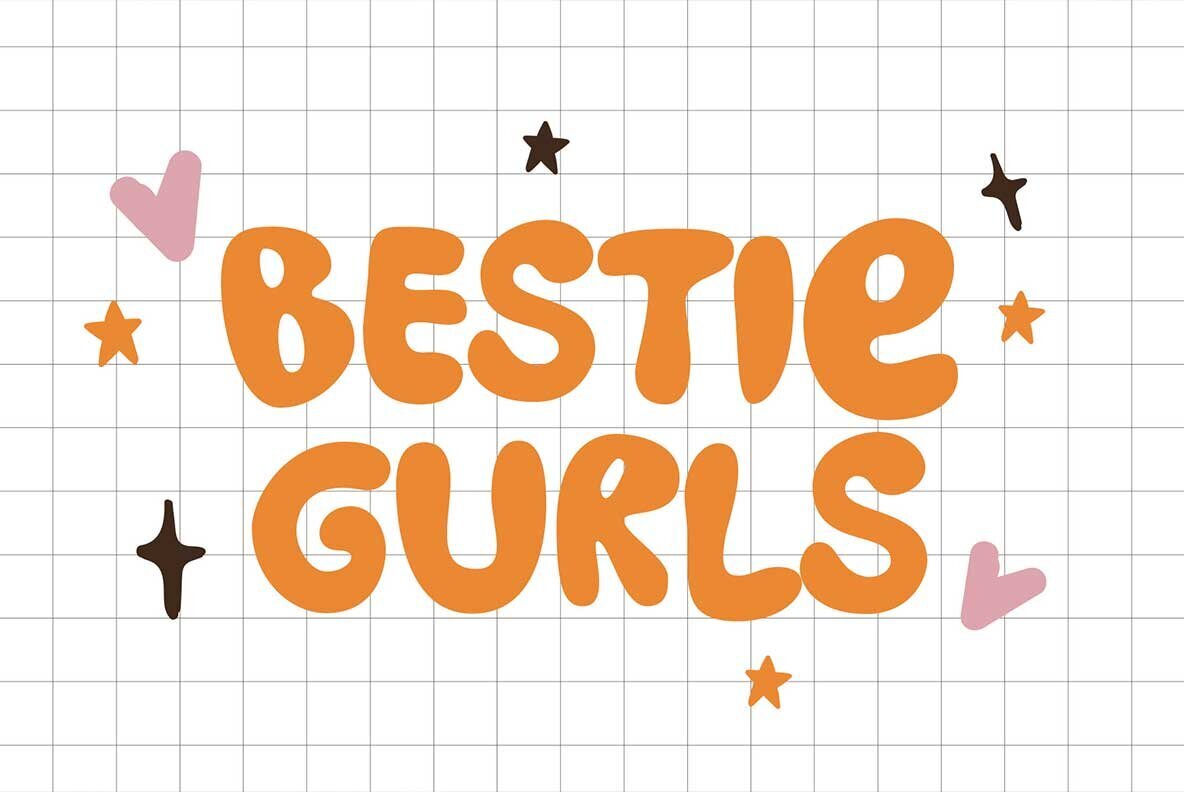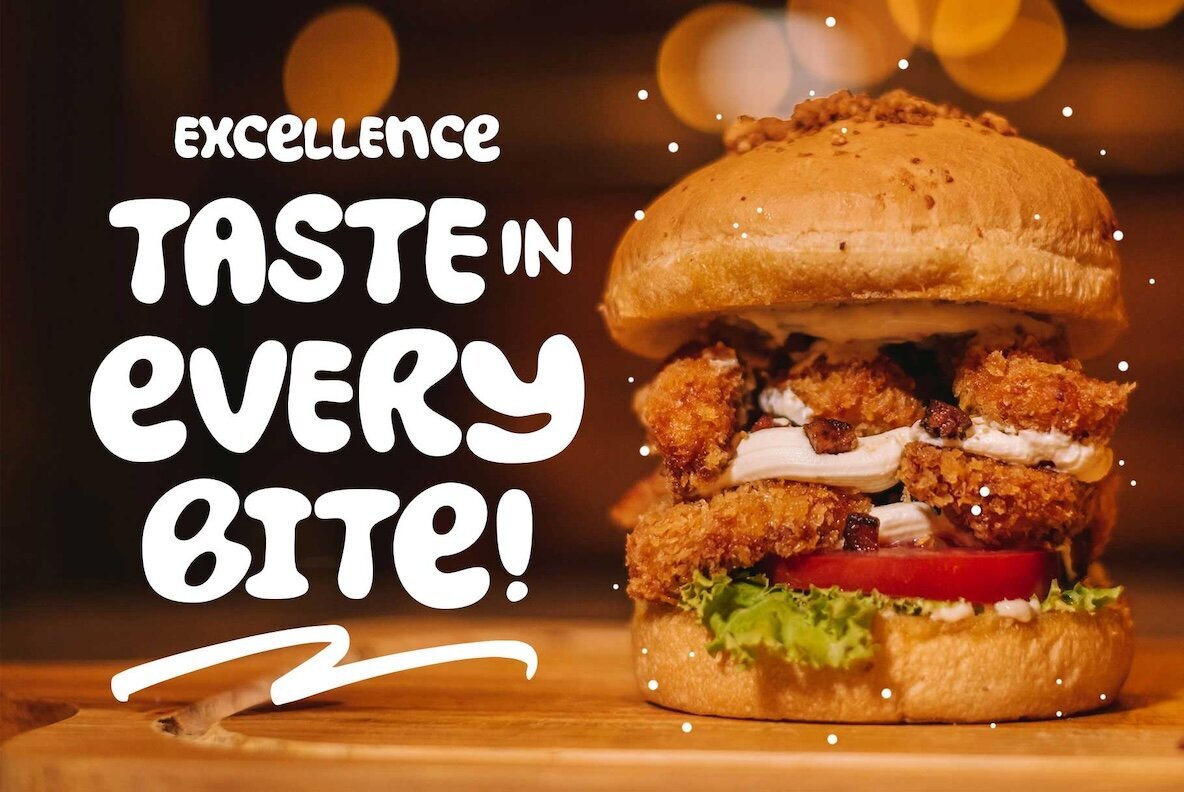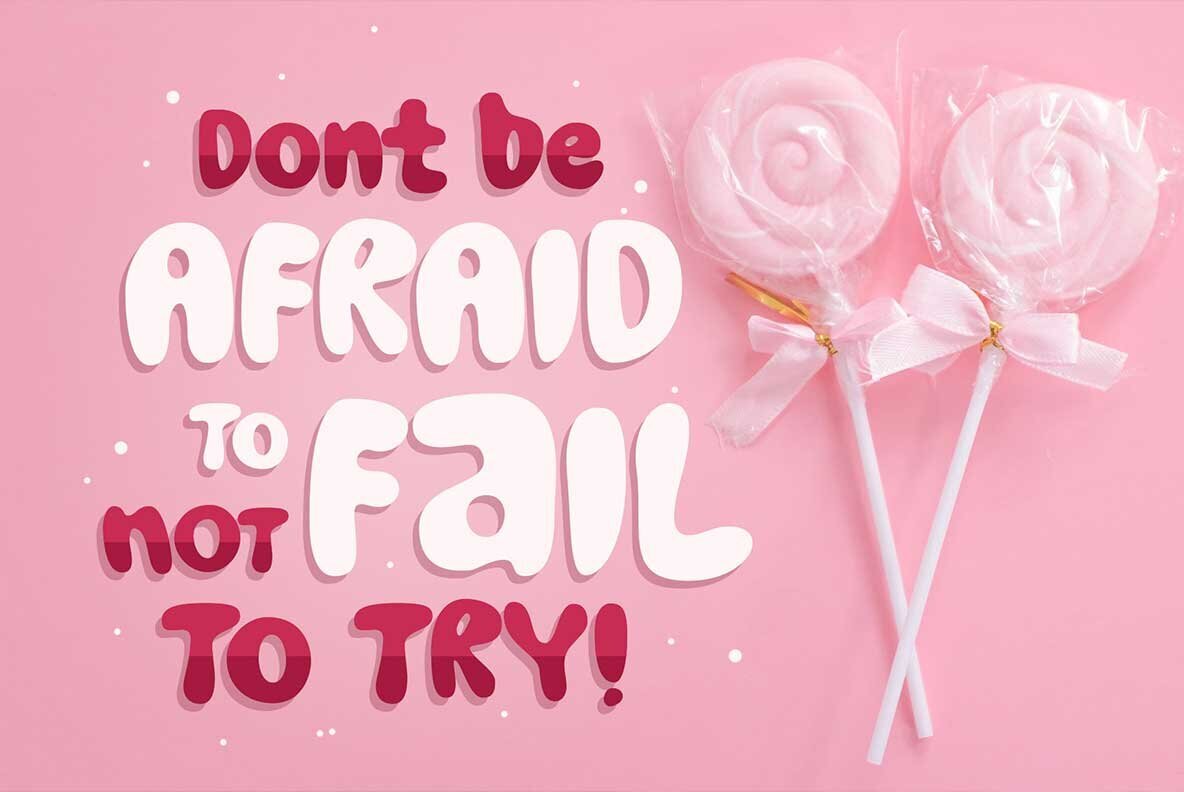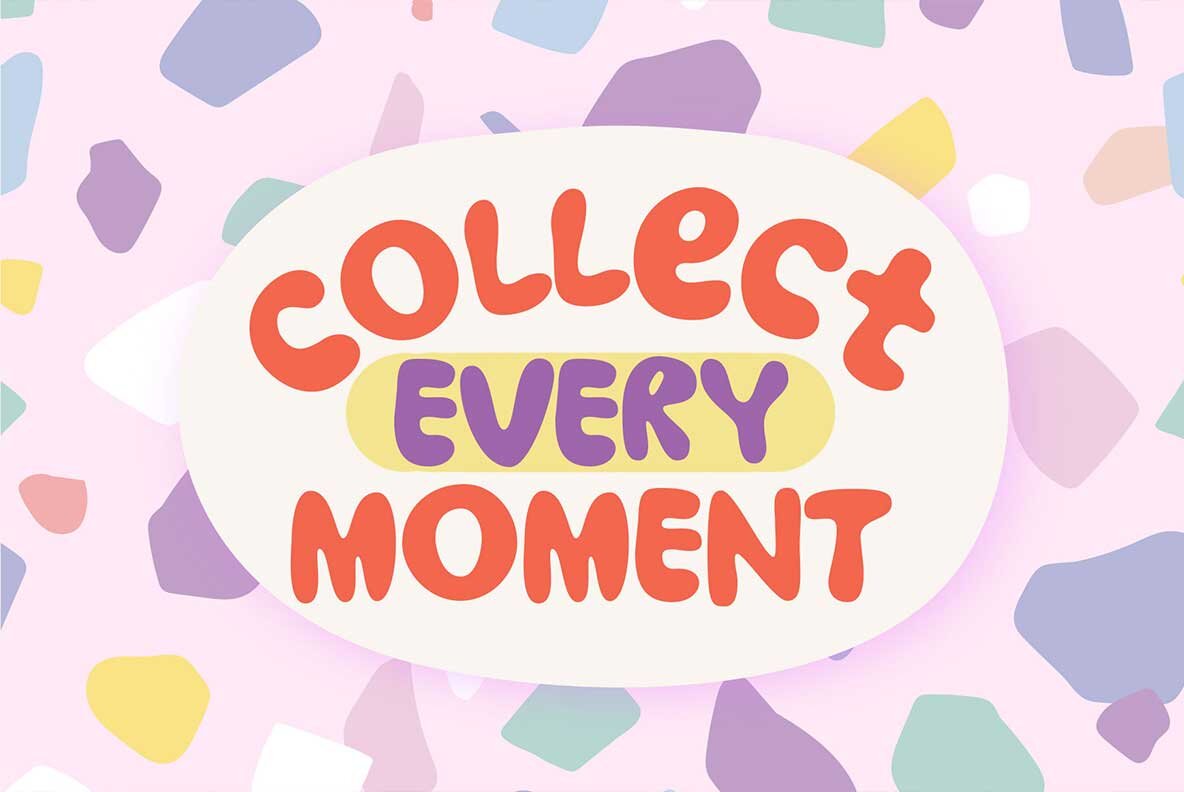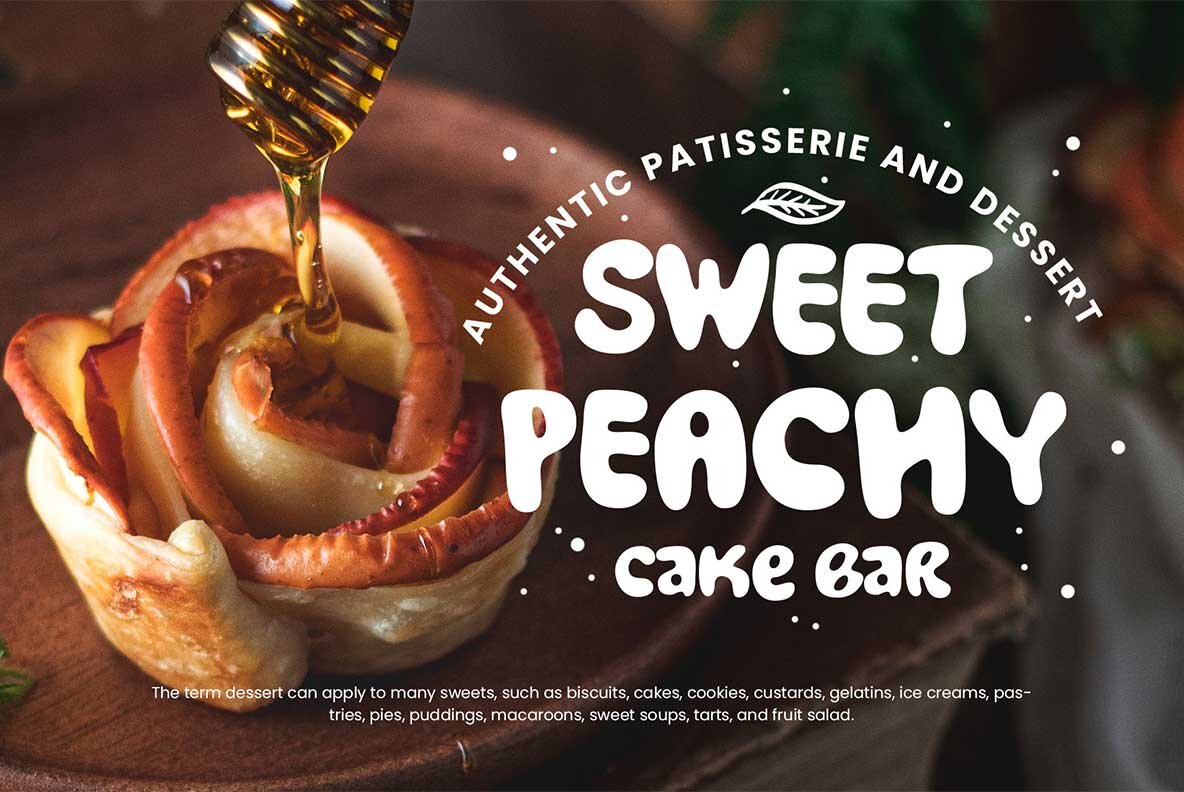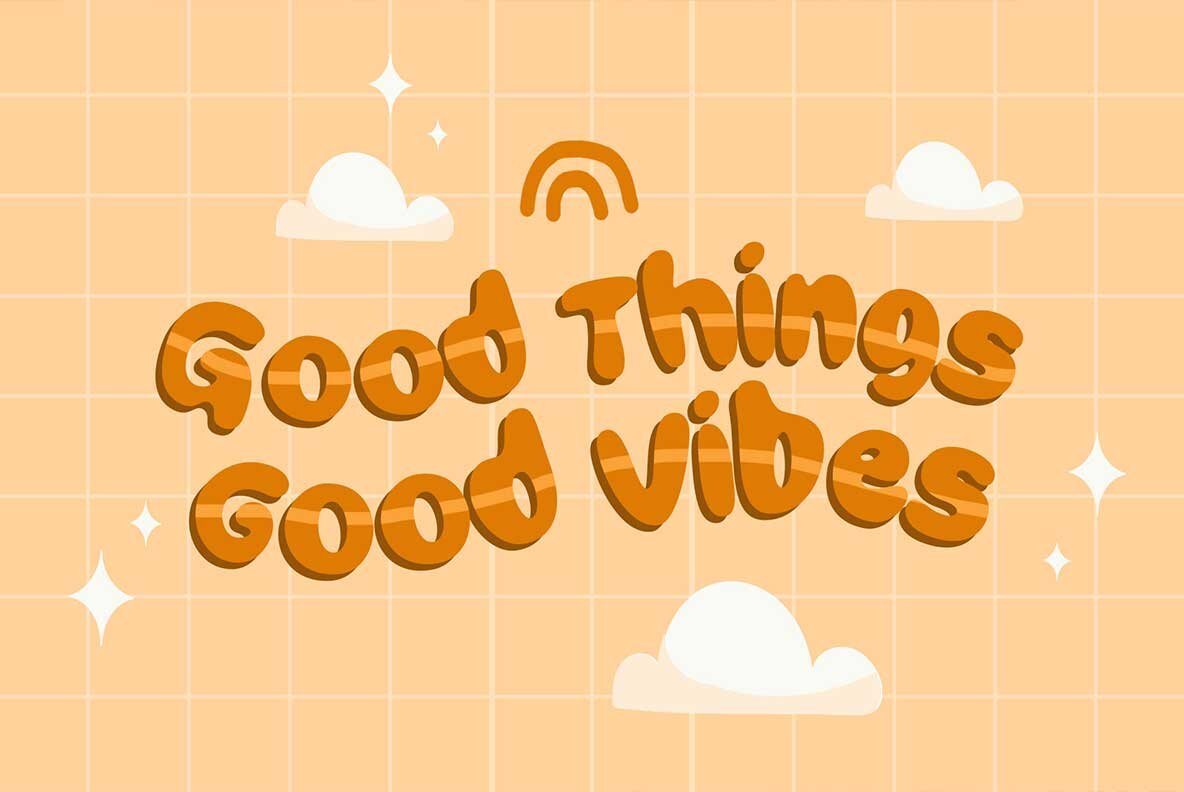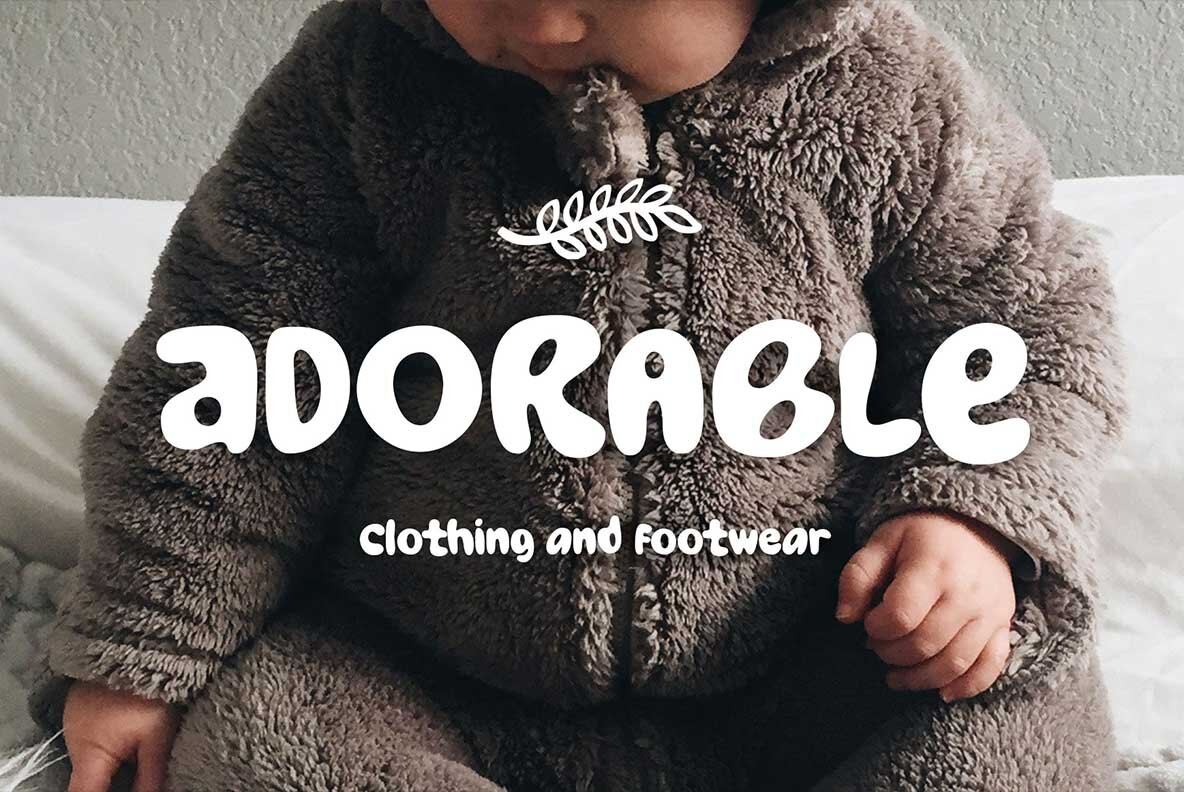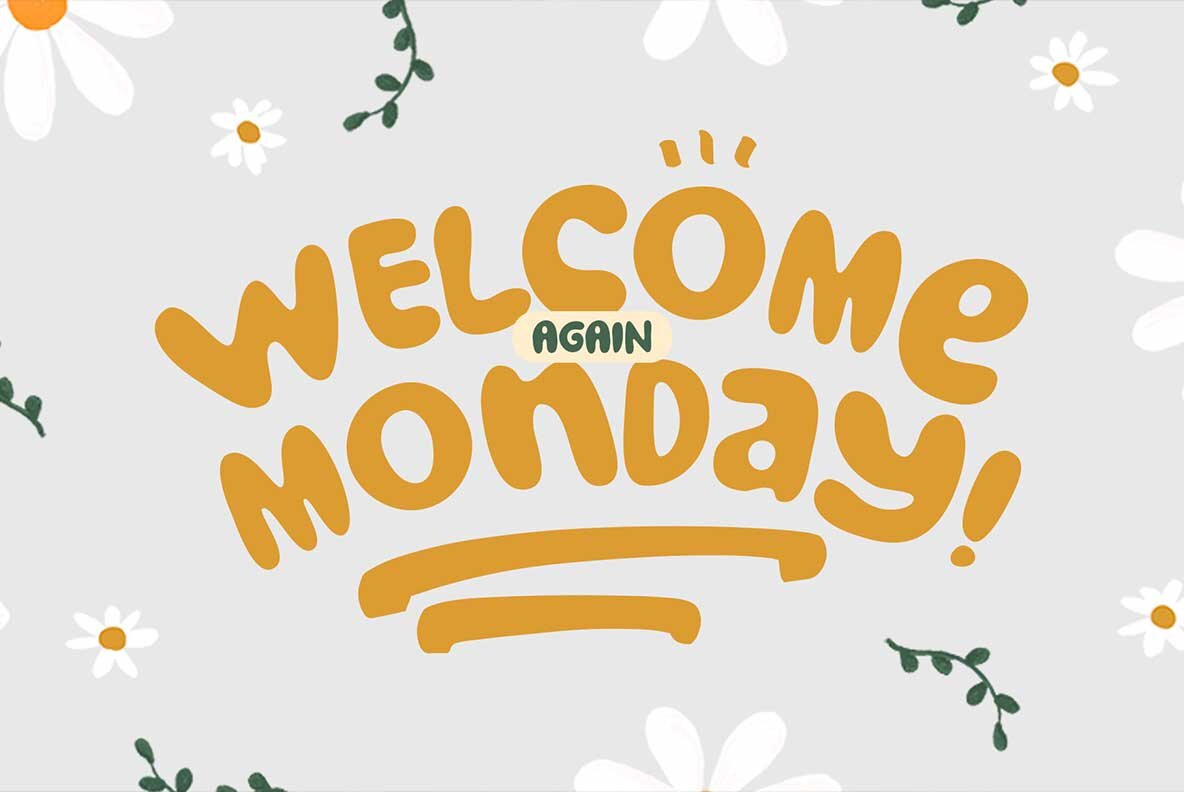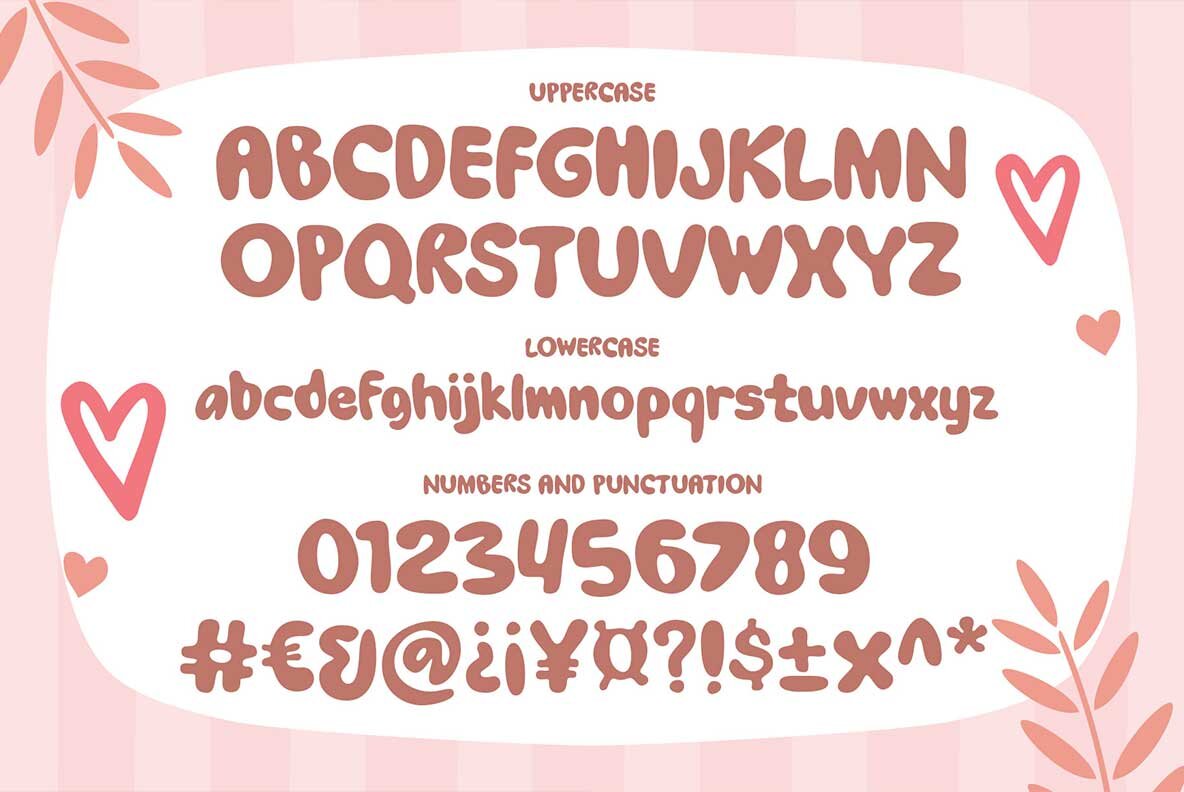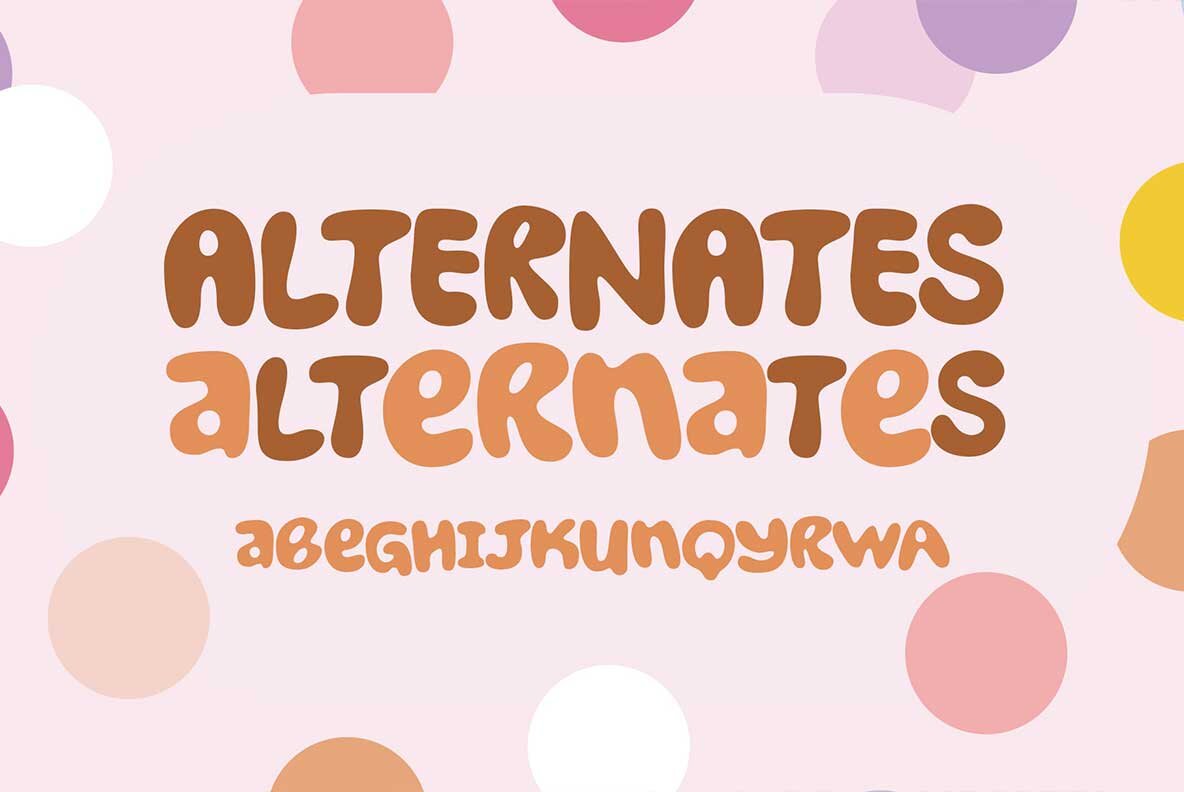
Bestie Gurls Font
Bestie Gurls Regular
Bestie Gurls brings playful, hand-drawn energy to your projects with its bubble-style letterforms and whimsical charm. Designed to evoke creativity and fun, this font is well-suited for projects needing a joyful, youthful touch. The versatile character set makes Bestie Gurls an easy choice for display work, bold posters, standout quotes, book covers, playful games, and art prints. Its built-in multilingual features and special characters support a broad creative vision, letting your concepts reach wide audiences effortlessly.Bestie Gurls Bubble Font